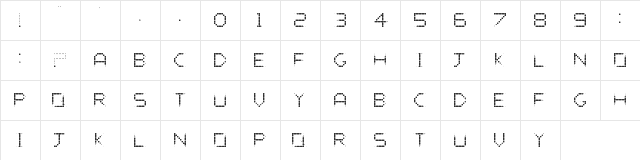
The Vandor Spot Regular
| Designer | LewieLewieLew74 |
Design Context for The Vandor Spot Typeface
The Vandor Spot is a composed and adaptable typeface that performs quietly and consistently across a wide range of design contexts.